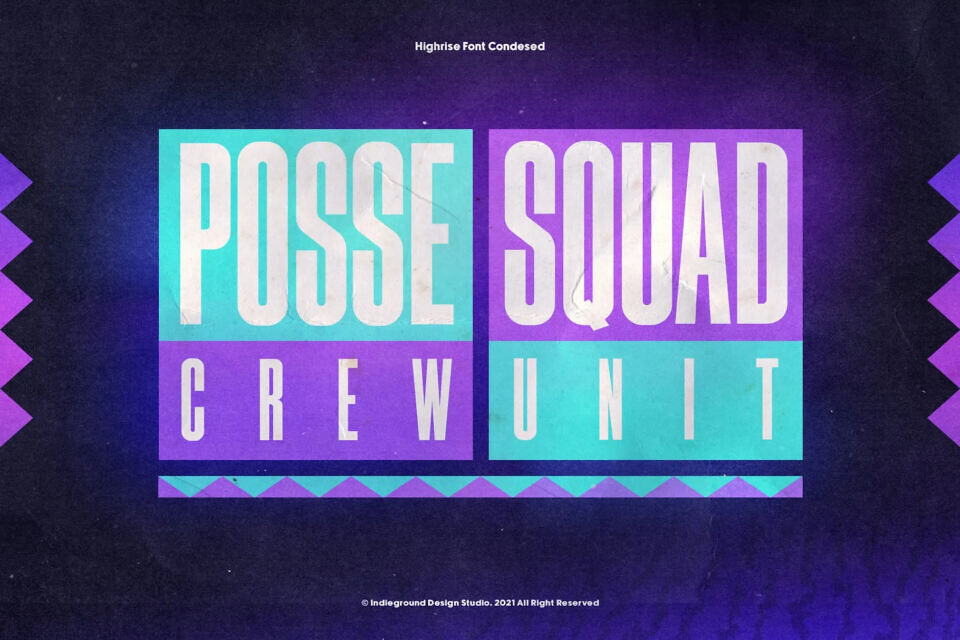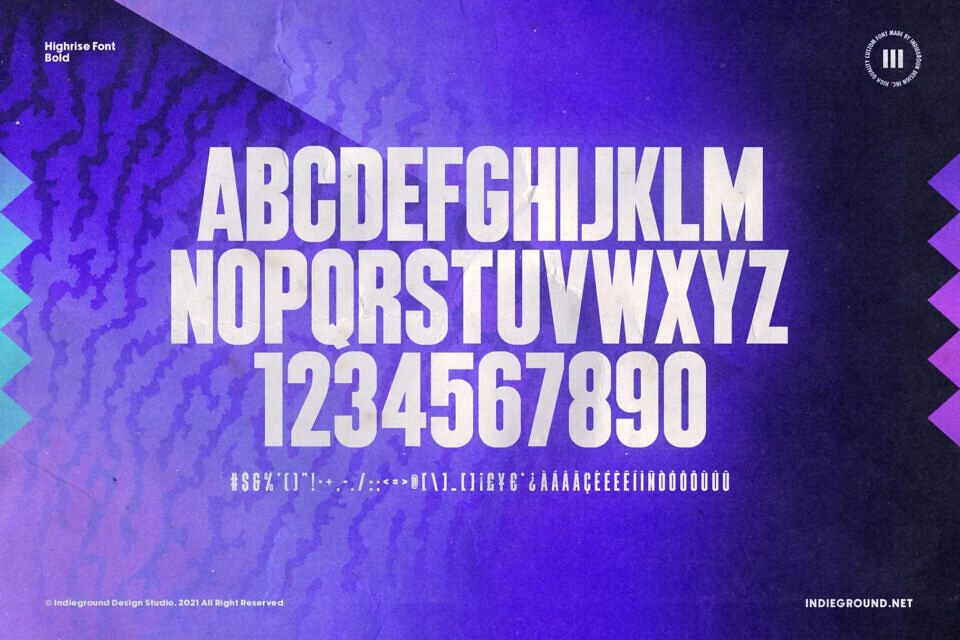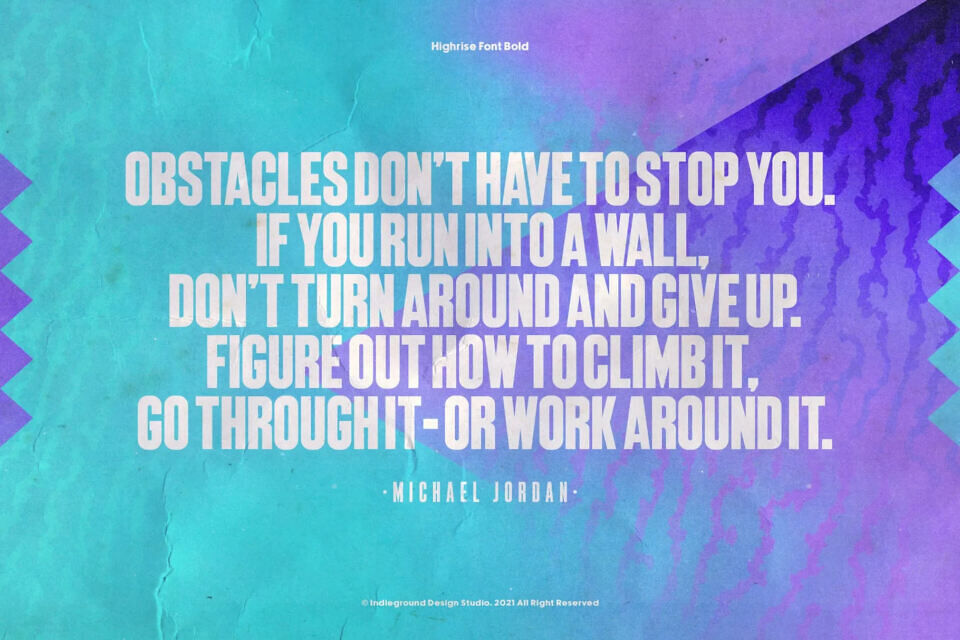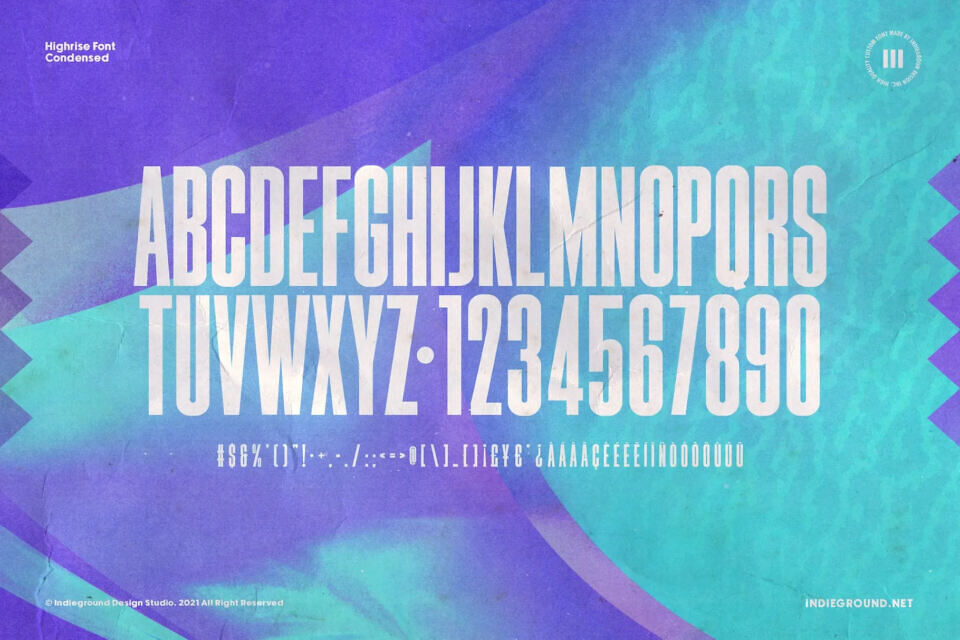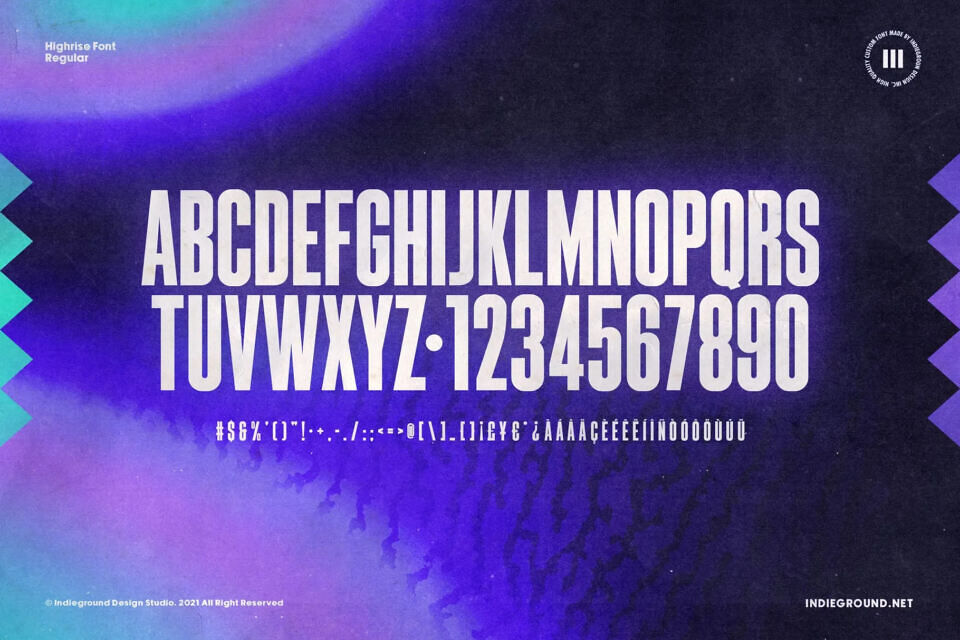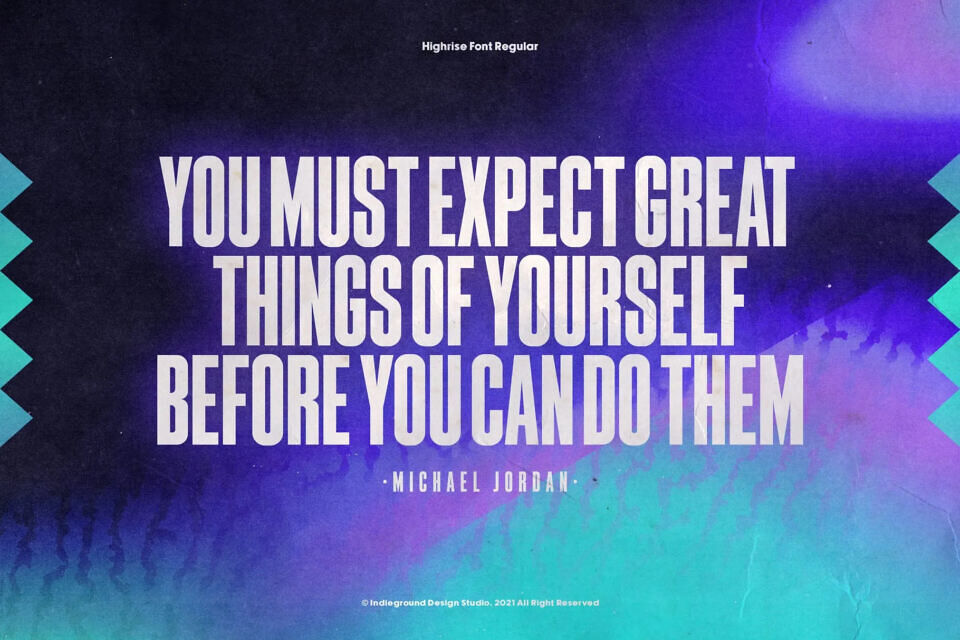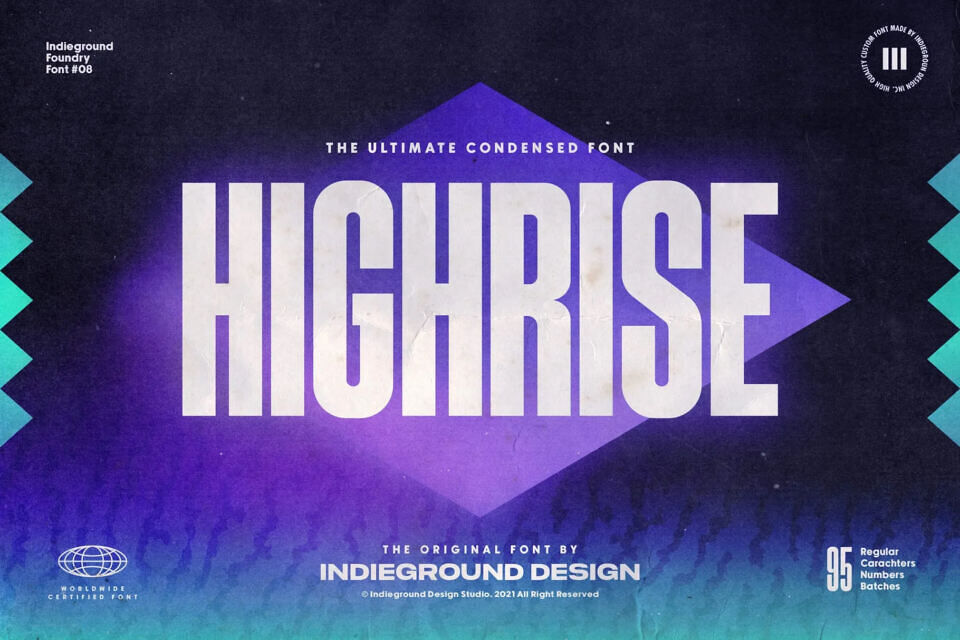
Highrise Font
Highrise Font by Indieground is a Condensed Display Font that gives boldness and style to your typographic projects, both retro and modern.
Highrise is one of most popular fonts, a condensed display font with a bold attitude perfect for headlines and heavy titles. It gives an iconic style and boldness to the typography of your artwork, and thanks to its versatile nature it fits all kind of vintage or contemporary styles. A font with a minimal atmosphere that will give a cool look and weight to all your artistic compositions.
The regular version is composed of 95 characters in total, and includes regular characters, numbers and special characters. The free version includes 3 styles: Regular, Bold, Condensed.